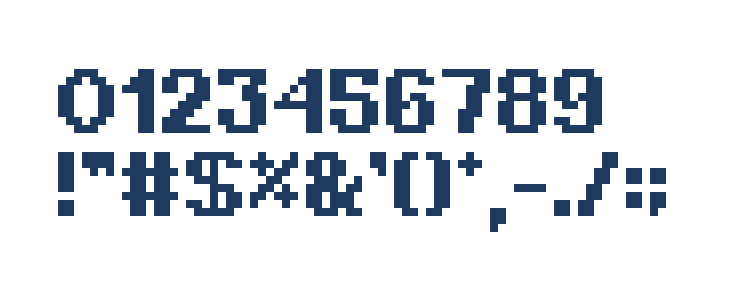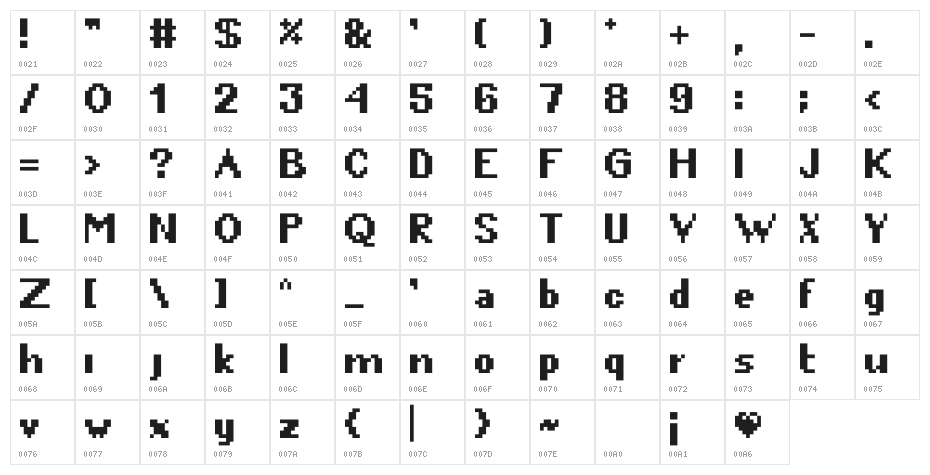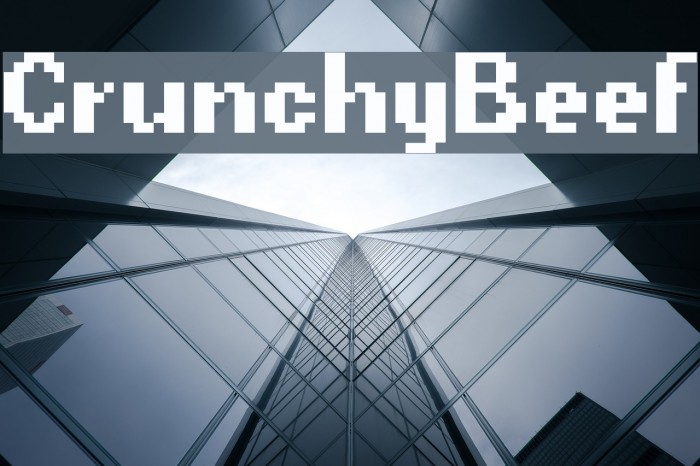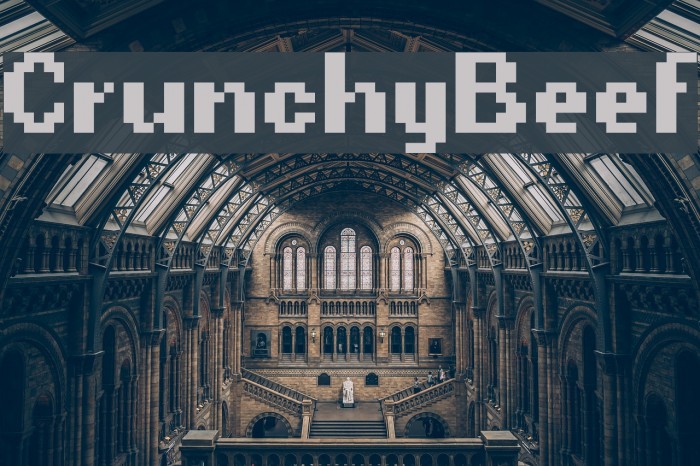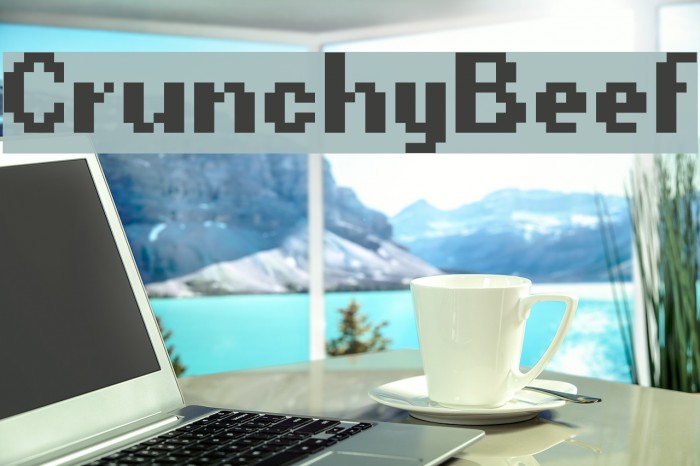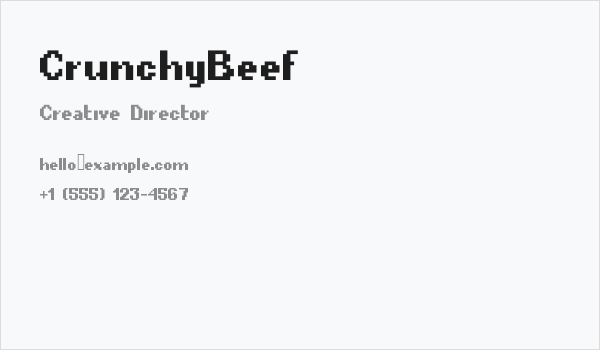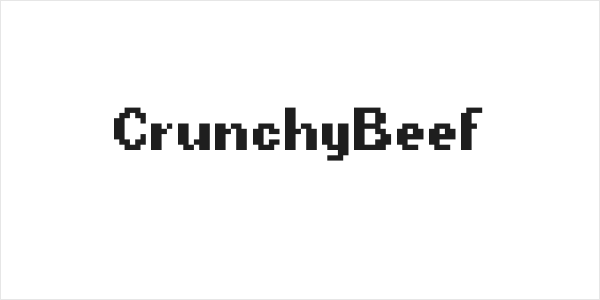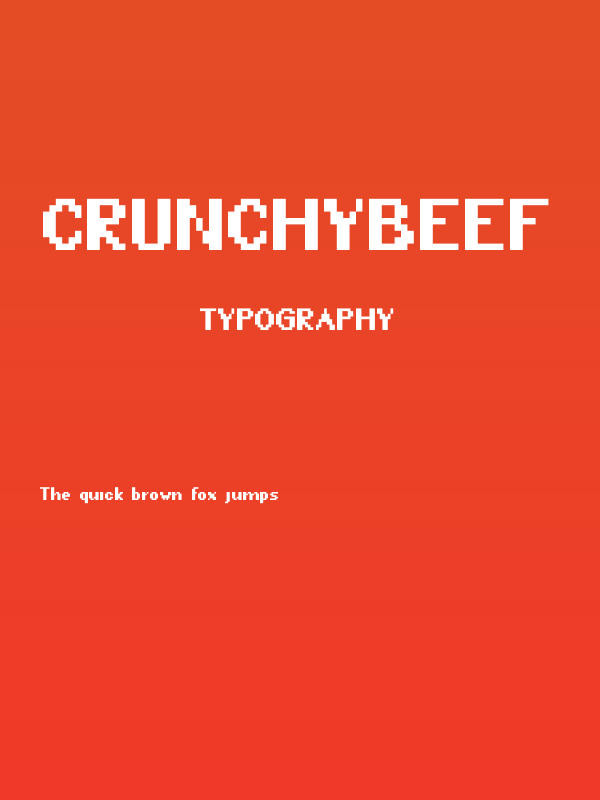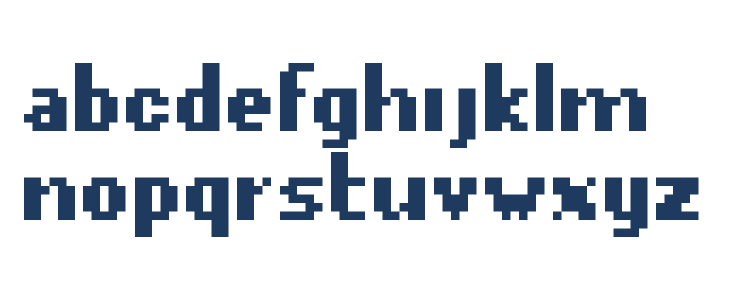
CrunchyBeef Font
CrunchyBeef Description
This font features a bold, pixelated style reminiscent of retro video games and digital displays. Each character is composed of blocky, square shapes that create a distinct, nostalgic appearance. The uppercase and lowercase letters maintain a consistent height, while the numerals and special characters are designed to match the overall aesthetic. The font's design is straightforward and legible, making it suitable for projects that require a vintage or tech-inspired look. Its pixelated nature gives it a unique charm, ideal for creative and playful designs.
| Proposed Projects | Ideal for video game design, retro-themed posters, digital art projects, and tech-related branding. |